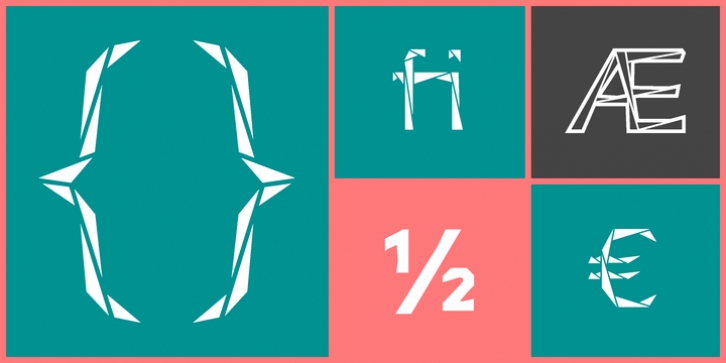
By the arrangement of single triangles Tri-Font gets a folded, handmade, geometric and modern effect. Tri-Font is perfectly suitable for use in anything from guidance systems to signage and was made for optimal readability both on screen and in print. The font family consists of a total of 350 glyphs and contains the font styles Triangle // Outline // Body.
In Deutsch Die Tri-Font bekommt durch die Anordnung einzelner Dreiecke eine gefaltete, handwerkliche, geometrische und moderne Wirkung. Tri-Font eignet sich wunderbar für den Einsatz in Leit- und Orientierungssystemen. In der Displayanwendung wie auch im Printbereich ist sie angenehm zu lesen. Die Schriftfamilie besteht insgesamt aus 350 Glyphs und beinhaltet die Schriftschnitte Triangle // Outline // Body.